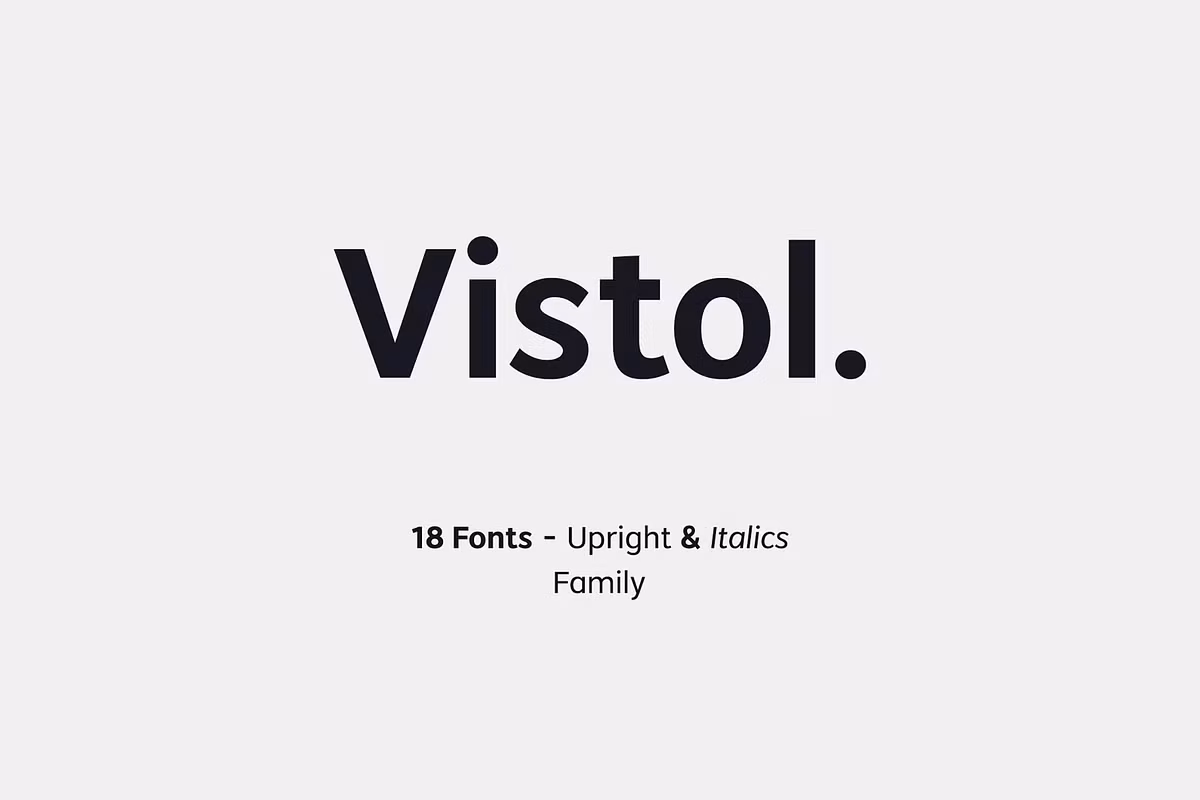
Vistol Sans Family Font Free Download is a versatile and modern sans-serif typeface family designed for clean, professional, and highly legible design. With a wide range of weights and styles, it offers flexibility for both display and body text, making it suitable for everything from branding and logos to website typography and editorial layouts.
The Vistol Sans Family includes a variety of weights, from light to bold, and often includes italic and other stylistic options to enhance design versatility. This font family is ideal for corporate branding, marketing materials, editorial designs, and any creative project that requires clarity and modern sophistication.
The family includes uppercase and lowercase letters, numerals, punctuation, and multilingual support, ensuring a consistent and polished look across different languages and media.